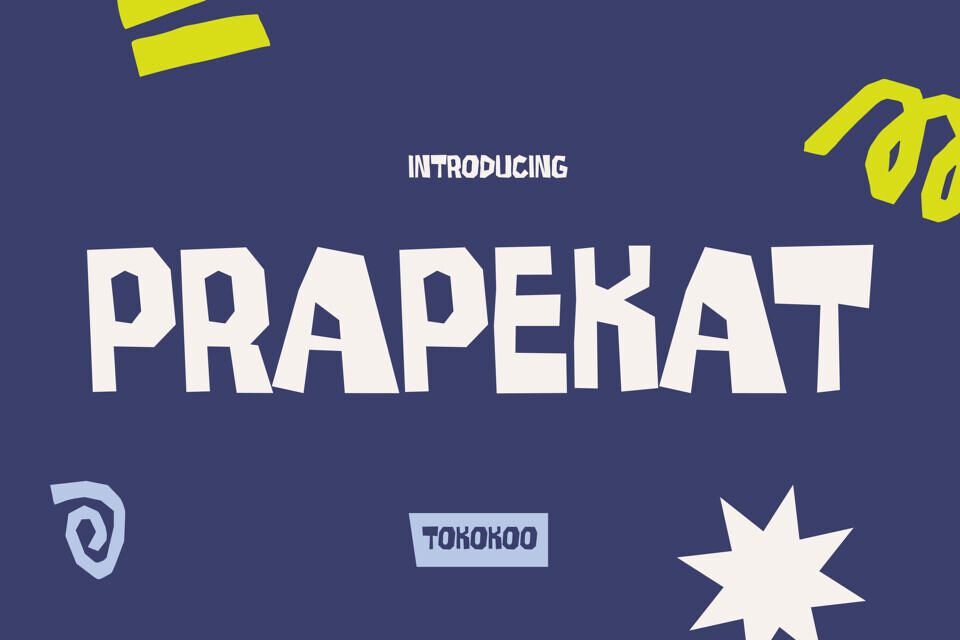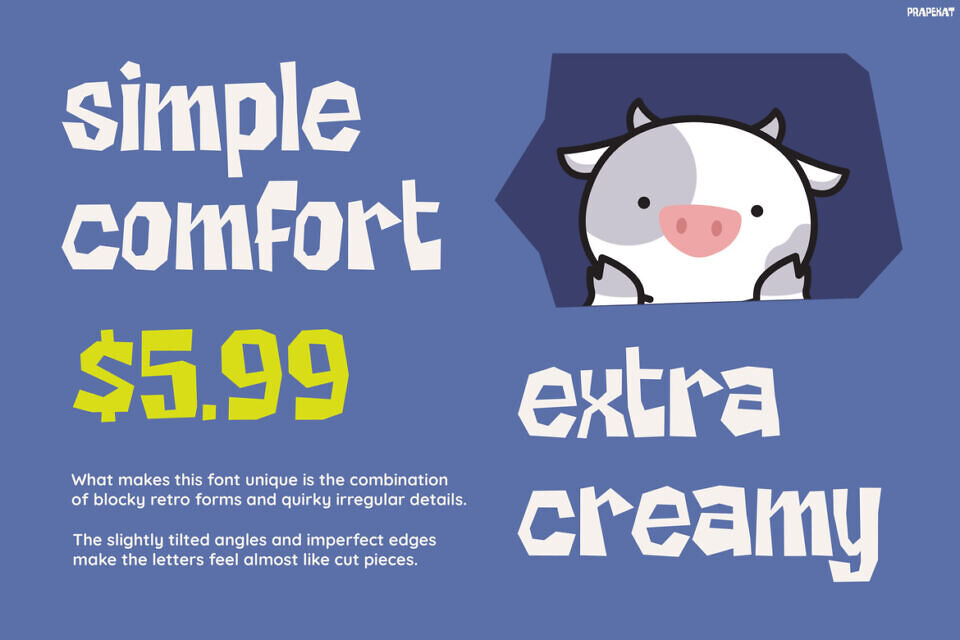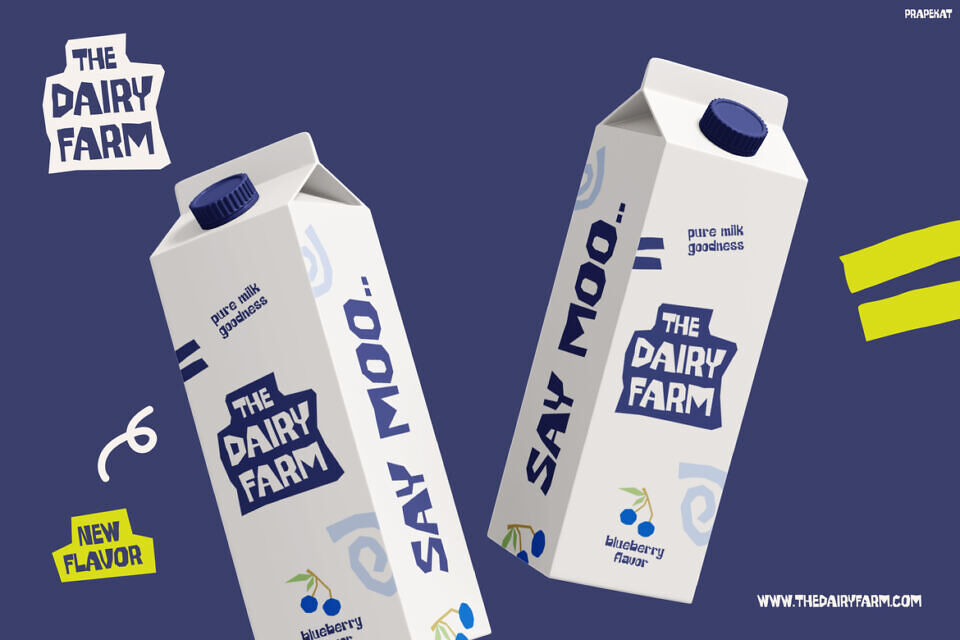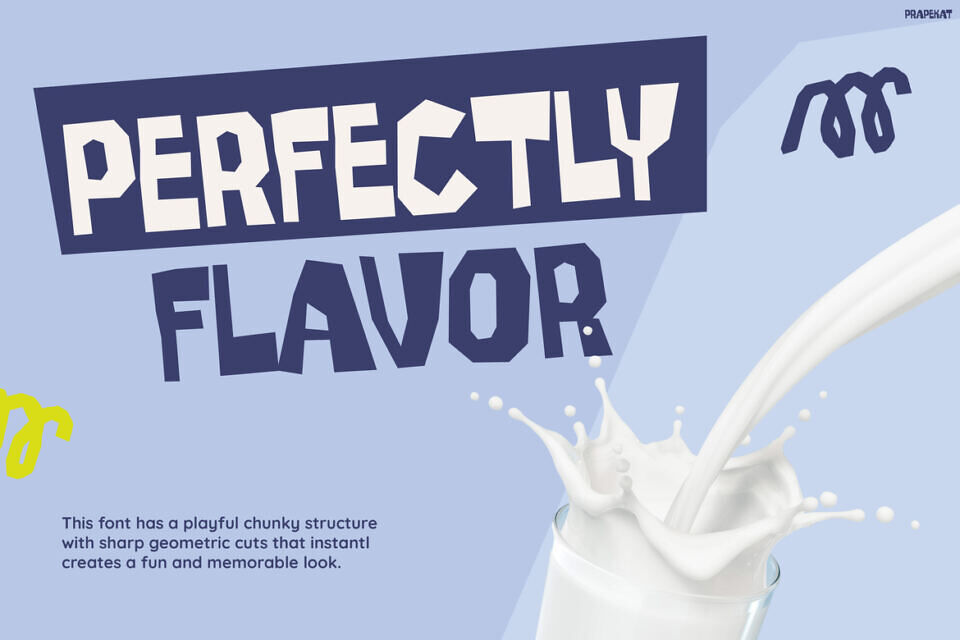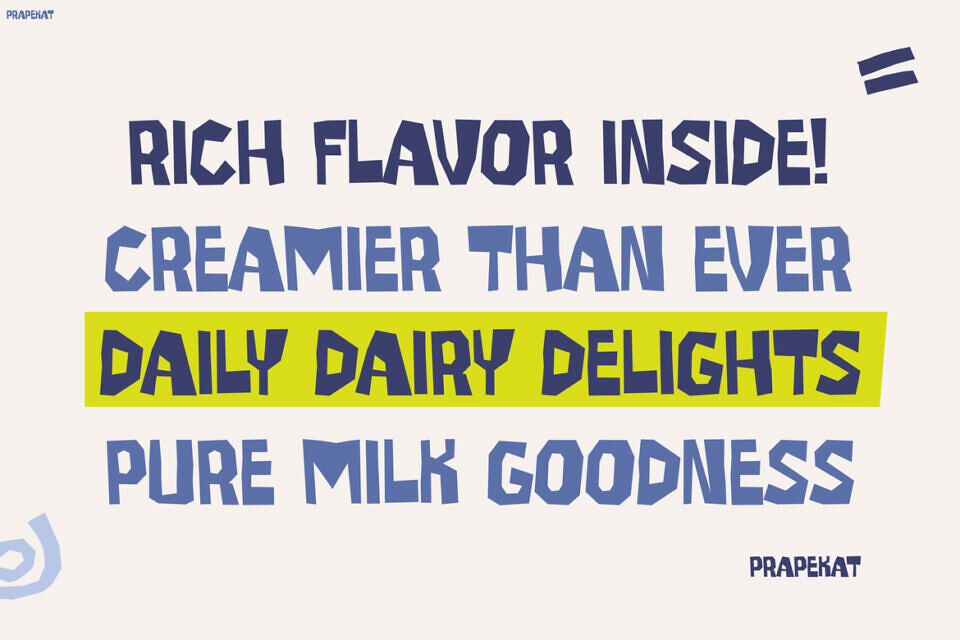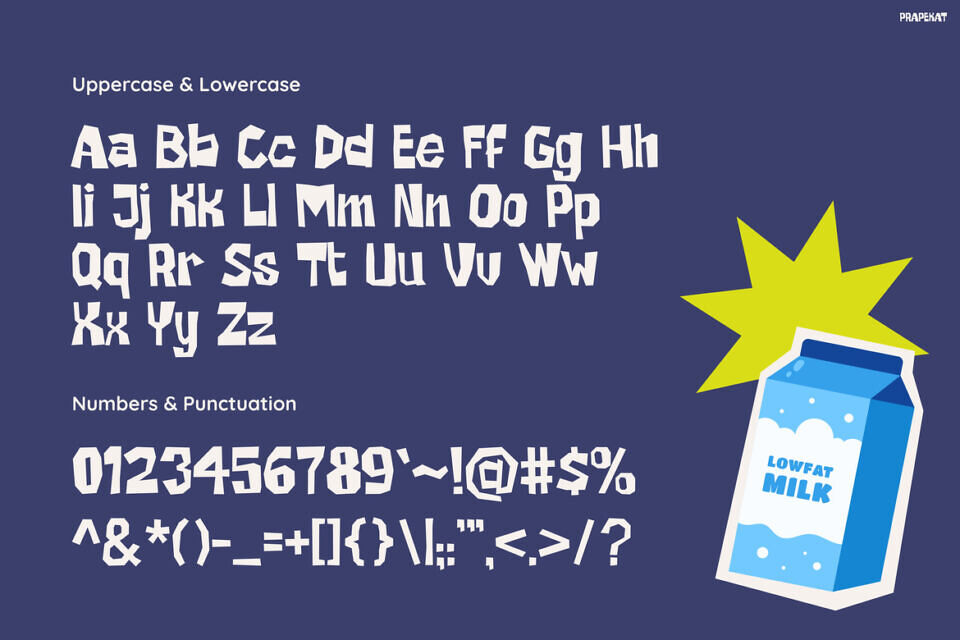
PRAPEKAT is a bold and playful display font designed to make every project feel more lively, colorful, and full of personality. Inspired by cartoon graphics, retro snack packaging, dairy branding, and cheerful kids visuals, this font instantly creates a fun and attention-grabbing appearance.
The font combines thick chunky letterforms with quirky handcrafted details, so every word feels expressive, dynamic, and visually exciting. Unlike ordinary kids fonts, PRAPEKAT delivers a unique balance between playful aesthetics and strong readability.